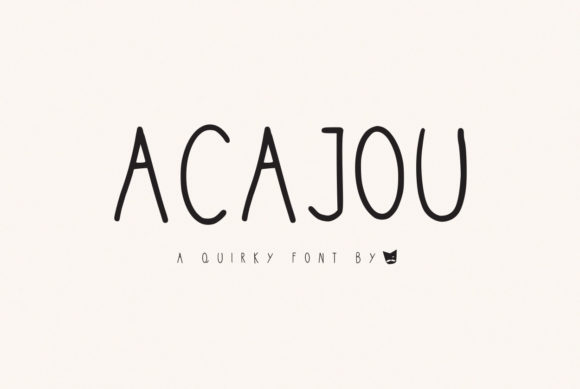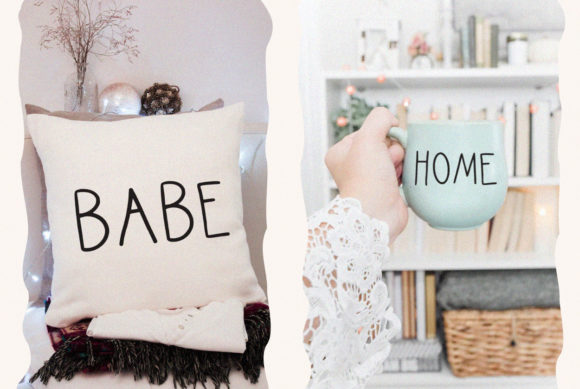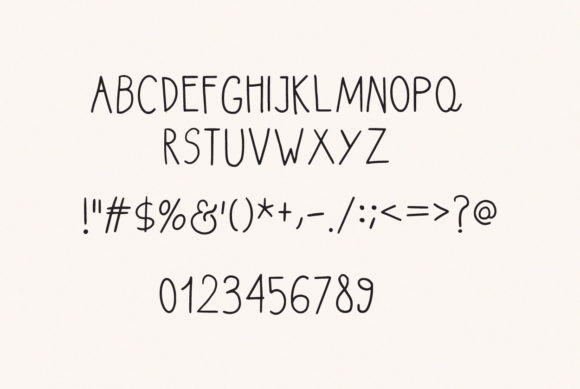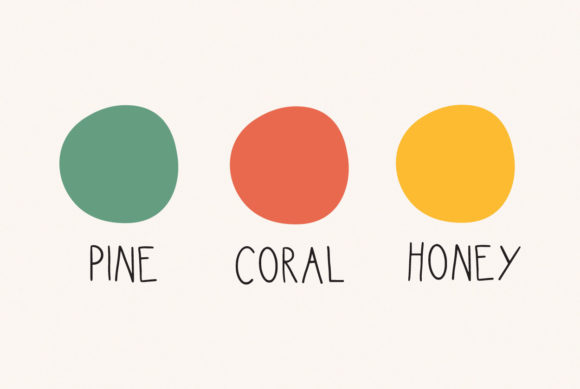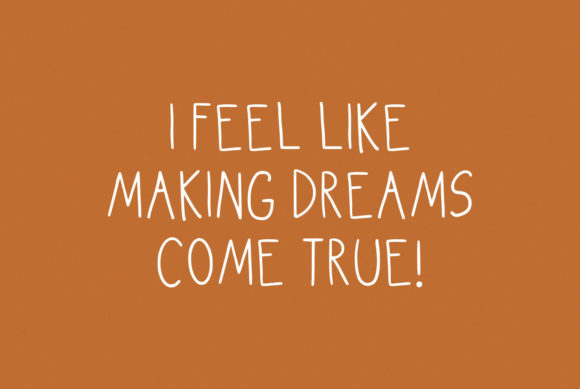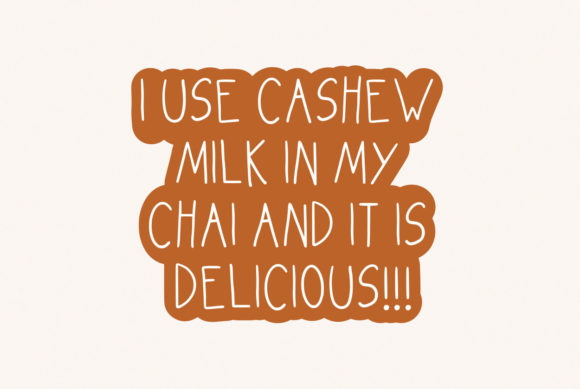
Acajou Font
Acajou is a delightful and approachable handwritten font that exudes a sense of playfulness and down-to-earth charm. Its simplicity and friendly appearance make it a versatile addition to your font library, capable of enhancing any type of creative project.
With Acajou, you can infuse your designs with a warm and welcoming vibe, making it suitable for a wide range of applications. Whether you’re working on branding, social media graphics, greeting cards, posters, or any other project, Acajou can easily adapt to your design needs.
The font’s effortless and casual style gives it a universal appeal, making it suitable for both lighthearted and serious content. It can convey a sense of approachability and relatability, making it perfect for brands and projects that want to connect with their audience on a more personal level.
Acajou’s versatility lies in its ability to be used across various themes and design contexts, from fun and whimsical to professional and informative. Its handwritten nature brings a touch of authenticity and uniqueness, setting it apart from more traditional fonts.
In summary, Acajou is a simple, playful, and down-to-earth handwritten font that has the potential to elevate any creation. Its charming and approachable style makes it a valuable asset for a diverse range of design projects, adding a touch of warmth and authenticity to your visuals.